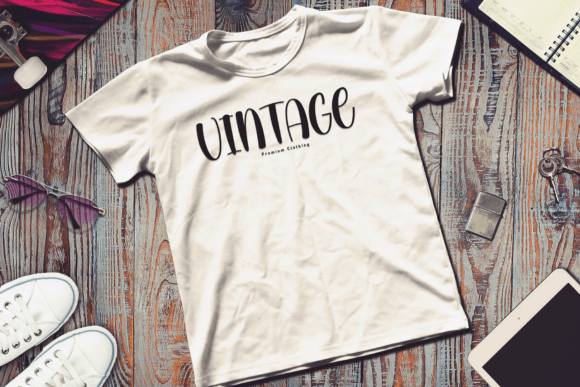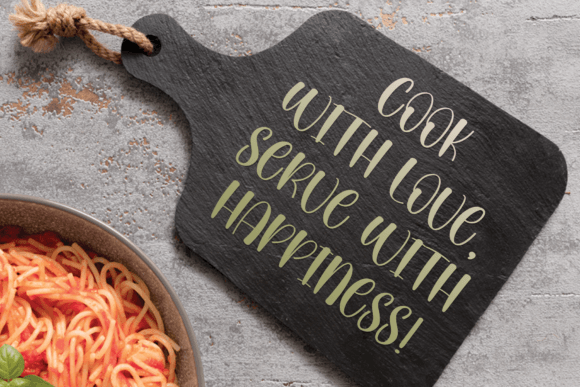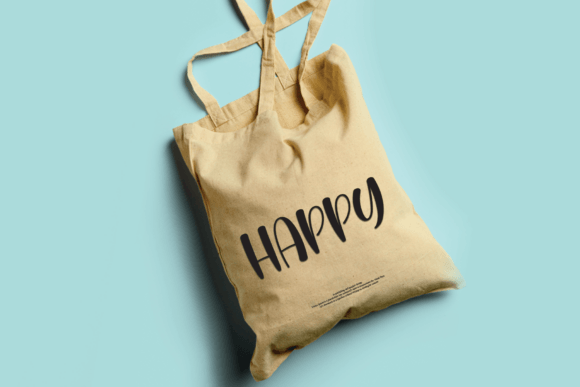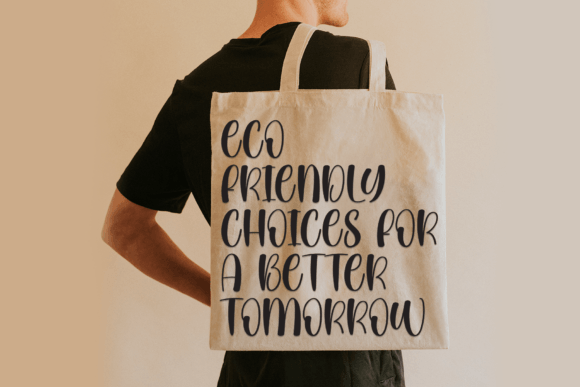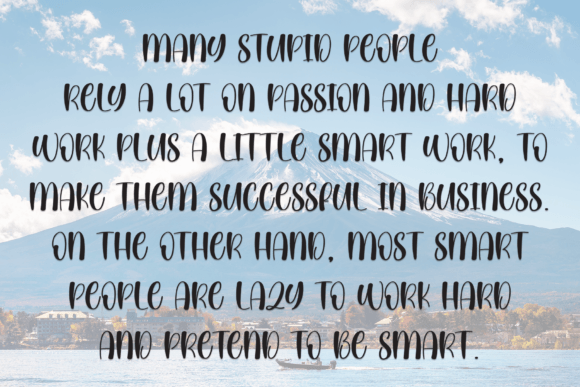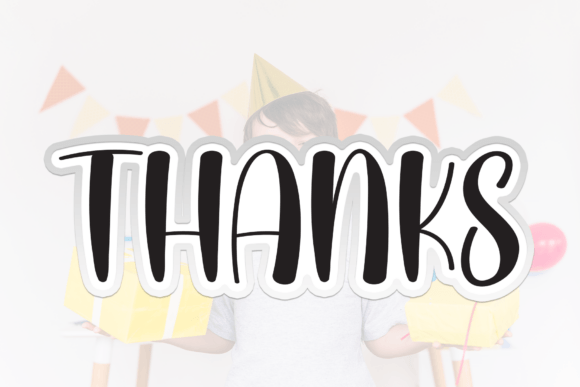
The Sweet Delight of Kinder Surprise Font
Have you ever found yourself in a creative rut, struggling to find the perfect font to match your vision? We’ve all been there – staring at a blank page, scrolling through font options, and feeling like nothing quite fits. But what if I told you there’s a font that’s as sweet as it is versatile?
Meet Kinder Surprise Font, a delightful handwritten font that’s as natural as it is unique. This charming font is perfect for designers looking to add a touch of warmth and personality to their projects. With Kinder Surprise Font, the possibilities are endless – from branding and advertising to packaging and editorial design. Its friendly style makes it incredibly fitting to a wide range of designs, limited only by your imagination.
Kinder Surprise Font Key Features
- Font Family: Kinder Surprise is a custom-designed font, not a standard font family.
- Unique Characteristics: The font features a distinctive, playful design inspired by the iconic Kinder Surprise chocolate egg.
- Usage: Ideal for use in packaging design, branding, and marketing materials where a fun and whimsical touch is desired.
Kinder Surprise Font Review
I recently had the chance to work with the Kinder Surprise Font, and I must say it’s a delightful addition to any project. ✨ The font’s playful and whimsical nature makes it perfect for kids’ products, educational materials, or any project that needs a touch of innocence.
Here are some features that I particularly enjoyed:
- Customizable elements: Kinder Surprise Font allows you to customize the font to fit your project’s needs, with options to change colors, sizes, and even add custom illustrations.
- Extensive character set: The font comes with a wide range of characters, including international characters, making it suitable for global projects.
- Smooth and rounded edges: The font’s rounded edges give it a friendly and approachable feel, making it perfect for child-focused projects.
- Limited flexibility: While the font is customizable, it’s not as flexible as some other fonts on the market, which can be a limitation for more complex projects.
- Not ideal for body text: Due to its playful nature, Kinder Surprise Font is better suited for headlines and titles rather than body text.
Overall, I think Kinder Surprise Font is a great addition to any designer’s toolkit, especially for projects that require a childlike charm. While it has its limitations, its unique features and customizable elements make it a worthwhile investment for the right project.
To get the most out of the Kinder Surprise Font, use it for playful and whimsical designs, such as children’s party invitations or food labels.
Pair it with bright and bold colors to create a fun and eye-catching design.
The Kinder Surprise Font is commonly used for:
Children’s party invitations and decorations
Food labels and packaging
Whimsical and playful designs
Alternatives to Kinder Surprise Font
Great Vibes Font is a modern script font perfect for creating a fun and playful atmosphere. It’s ideal for branding, advertising, and packaging design. Great Vibes Font is a more versatile alternative to Kinder Surprise Font, offering a wider range of stylistic variations.
Comparison to Kinder Surprise Font: Great Vibes Font has a more elegant and refined feel, while Kinder Surprise Font is more cartoonish and playful.
Alex Brush Font is a beautiful script font that exudes sophistication and elegance. It’s perfect for creating a luxurious and high-end feel in branding, advertising, and packaging design. Alex Brush Font is a more refined alternative to Kinder Surprise Font, offering a more subtle and sophisticated look.
Comparison to Kinder Surprise Font: Alex Brush Font is more elegant and refined, while Kinder Surprise Font is more playful and cartoonish.